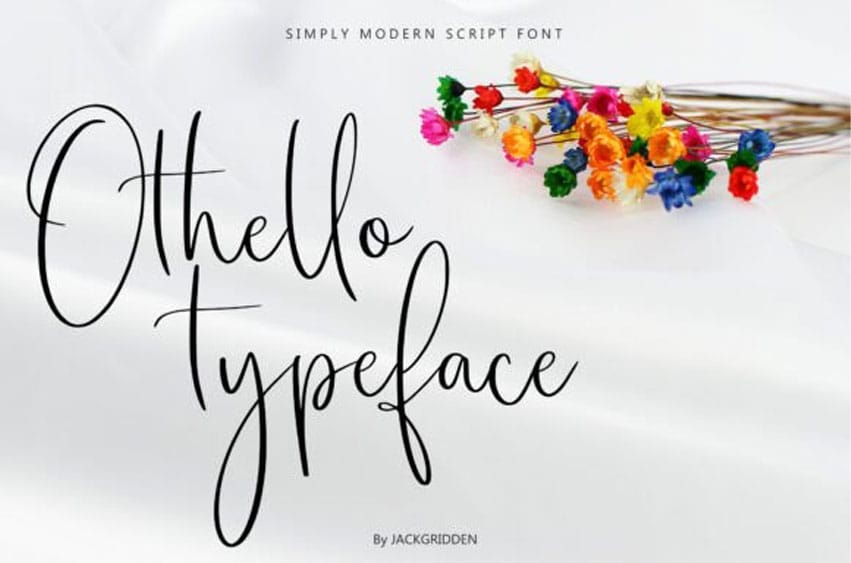
Othello Typeface Font is a chic and contemporary handwritten script font that exudes effortless elegance with a playful touch. This font features fluid, graceful strokes and whimsical curls, adding a charming flair to any project.
Perfect for everything from wedding invitations and branding to social media and creative design, Othello typeface brings a unique blend of sophistication and casual style.
Its balance between readability and artistic expression makes it versatile for both formal and informal occasions. Elevate your design game with Silkglitt – where silk meets glitter in every letter.